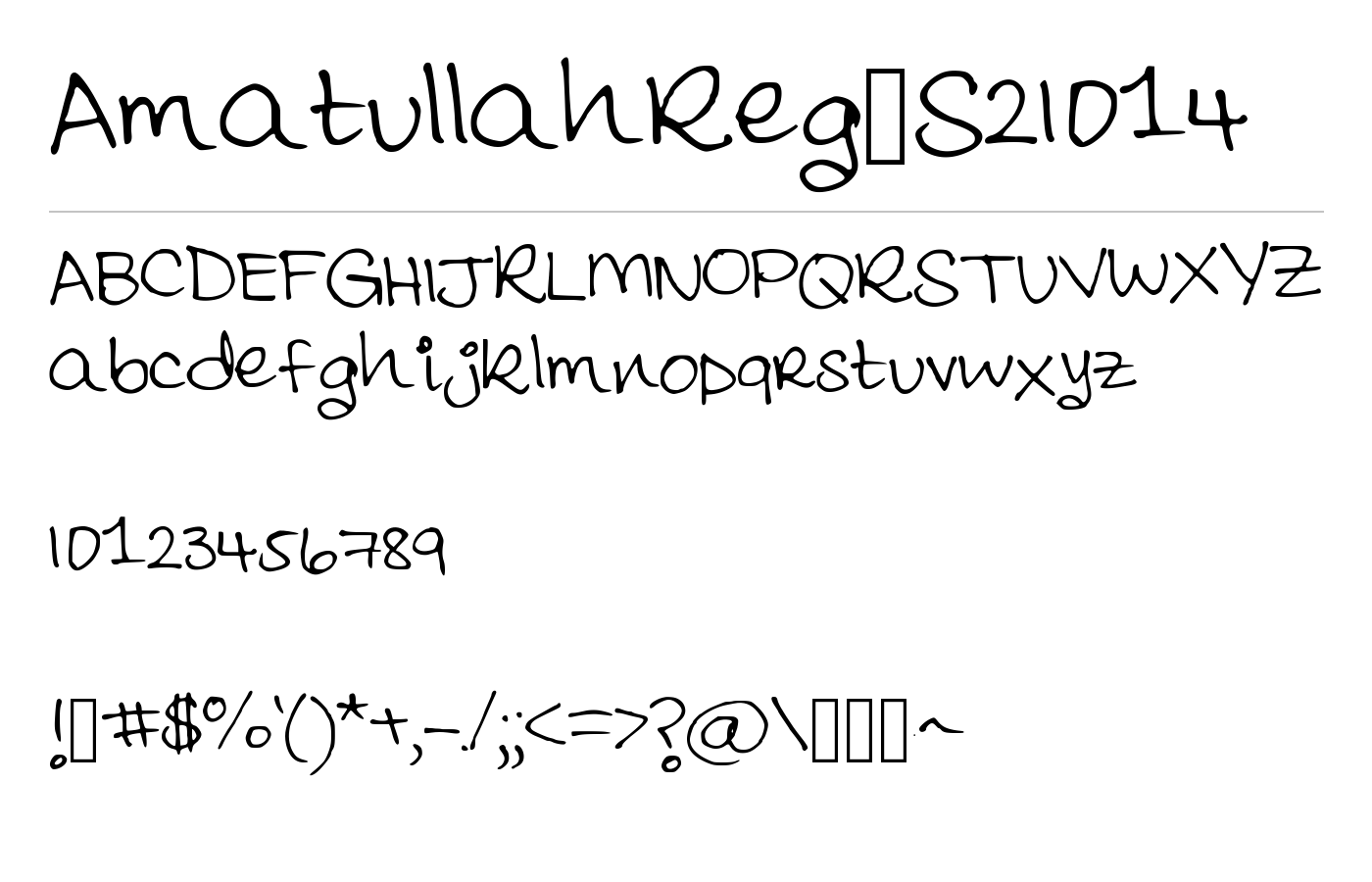
AmatullahReg_S2014 is a playful, handwritten-style font with a casual and friendly feel. Its irregular, slightly quirky letterforms and light weight give it a personal and approachable character, making it ideal for creative projects, informal branding, and anything seeking a warm, human touch. This font works well in headlines, invitations, and playful designs where a relaxed and informal vibe is desired.
AmatullahReg_S2014 Font
About AmatullahReg_S2014 Font
| Font family | AmatullahReg_S2014 Font |